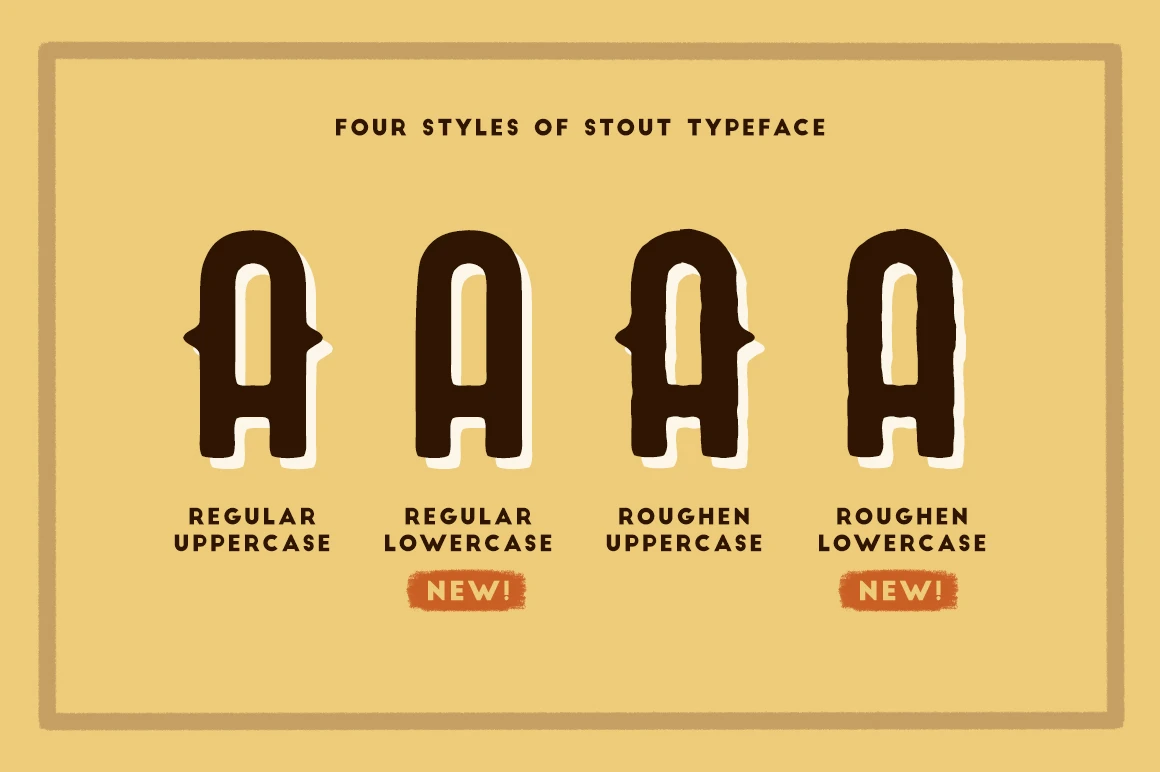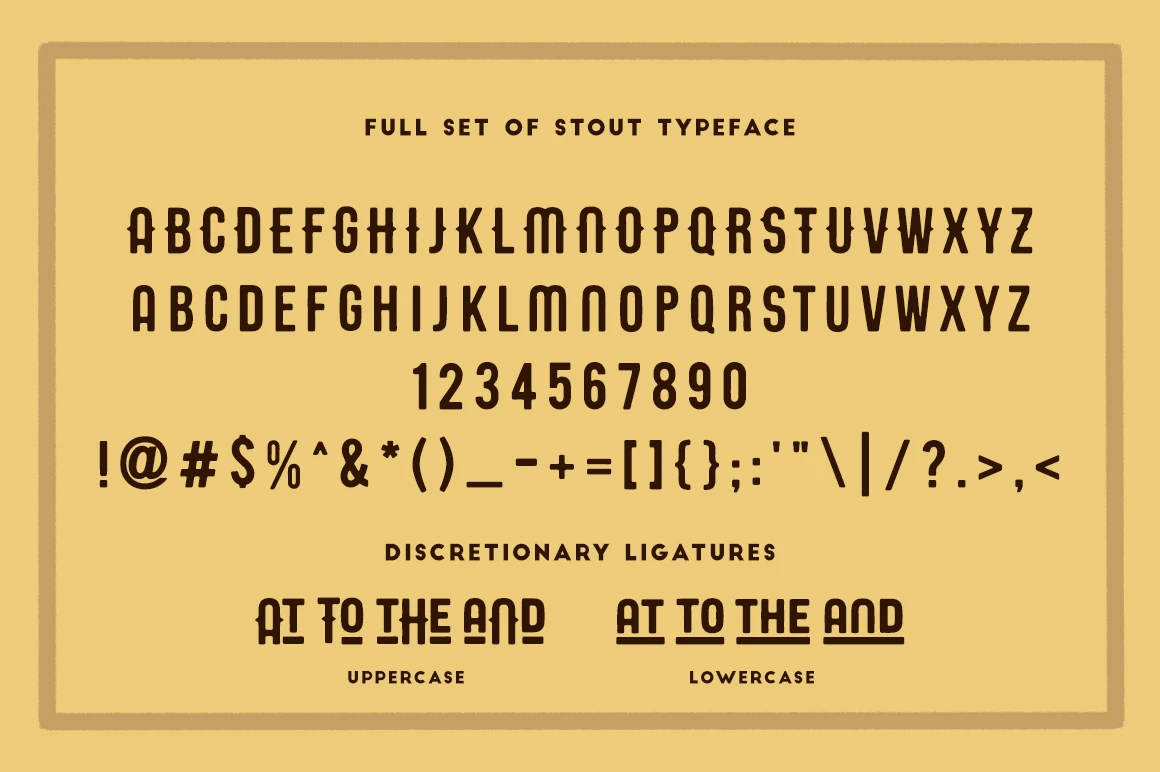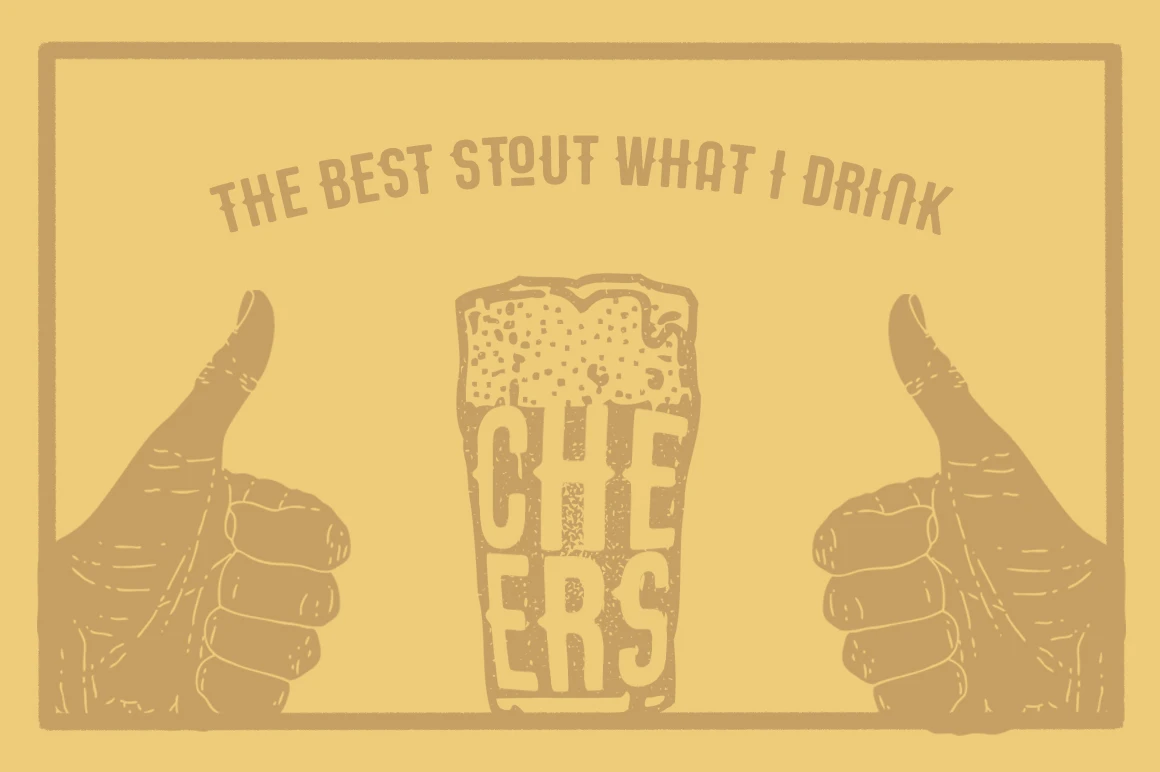
Stout Font Family
Stout is a bold vintage font designed for logos, headers, flyers, cards, posters, and more. Features letters, numbers, punctuation, and discretionary ligatures for added character. Comes in two styles — normal and handy — for versatile use. Built to bring a strong, classic look to any design with a handcrafted touch. Perfect for standout visuals with vintage charm.
• Discretionary Ligatures
Styles included • Regular • Rough
Stout font styles
Stout Regular
Stout Rough